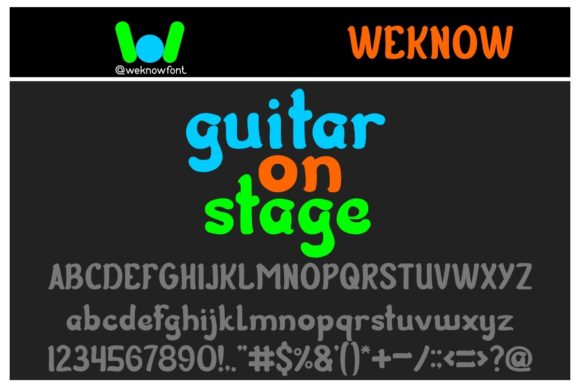
Step into a world of gaming enchantment with Guitar on Stage Font, the ultimate display font for captivating game user interfaces. Its bold, hand-painted strokes evoke a sense of adventure and playfulness, making it the perfect choice for game developers seeking to create immersive experiences. With its unique and eye-catching design, Guitar on Stage Font will leave a lasting impression on your players.
Imagine your game characters and UI elements adorned with this vibrant and energetic font. The carefully crafted details and dynamic brushwork will bring your game world to life, immersing players in a captivating realm of wonder. Whether you're designing a fantasy RPG, a futuristic shooter, or a lighthearted platformer, Guitar on Stage Font will elevate your game's visual appeal and leave players yearning for more.
Experience the creative possibilities that await you with Guitar on Stage Font. Dive into a sea of customization options, seamlessly blending colors and effects to match your game's unique aesthetic. Unleash your artistic flair and create a visual masterpiece that will set your game apart from the crowd.